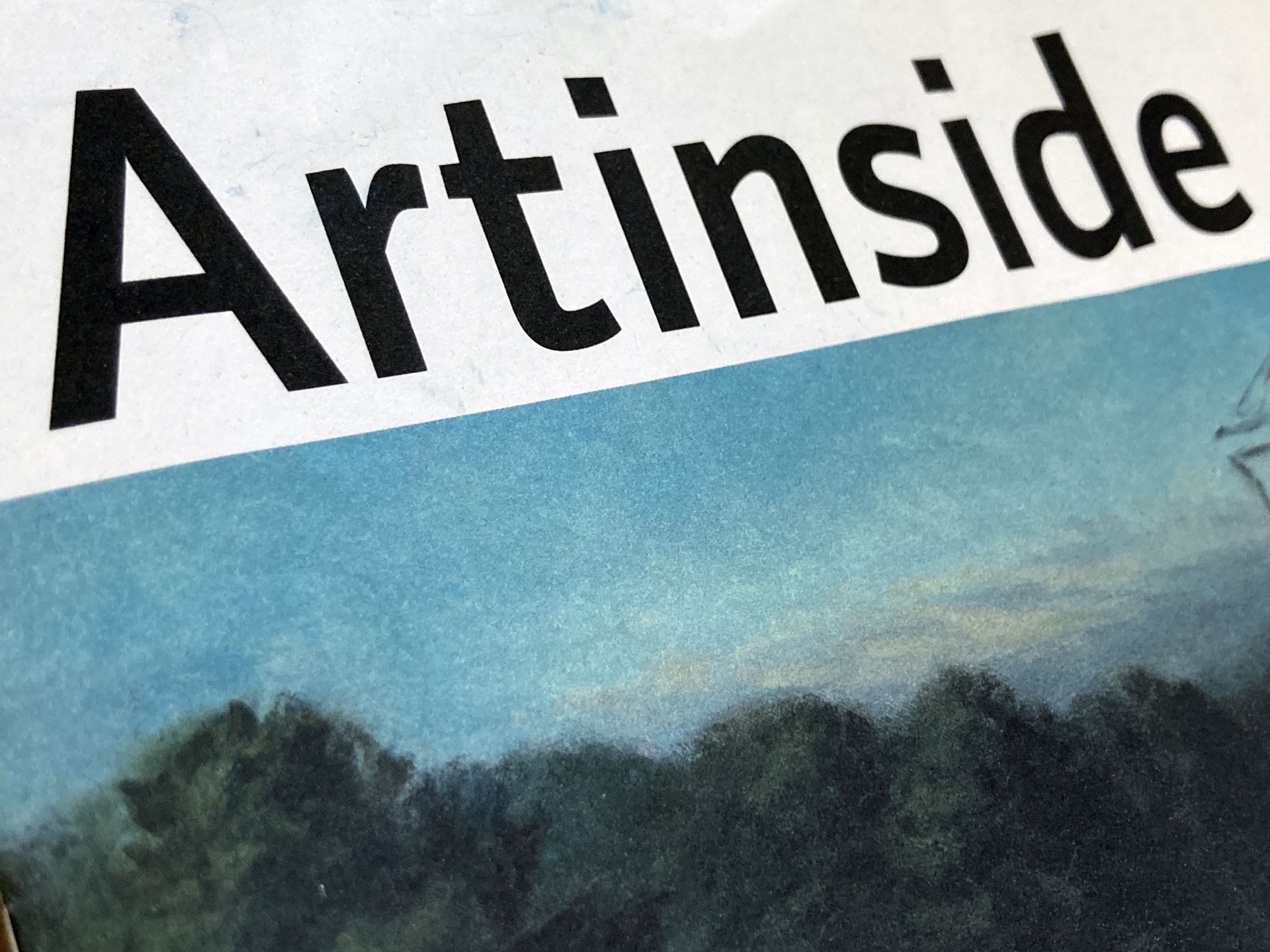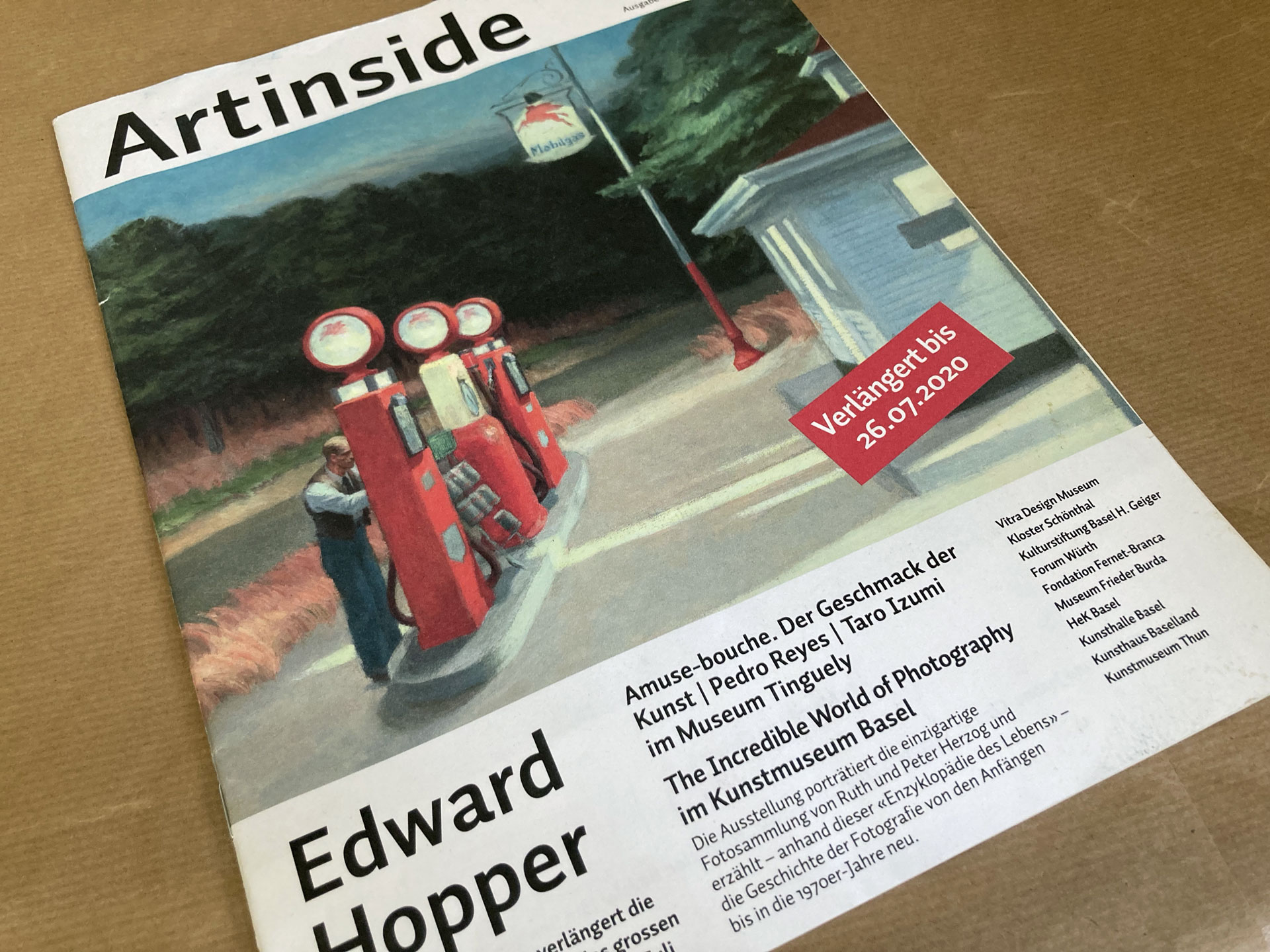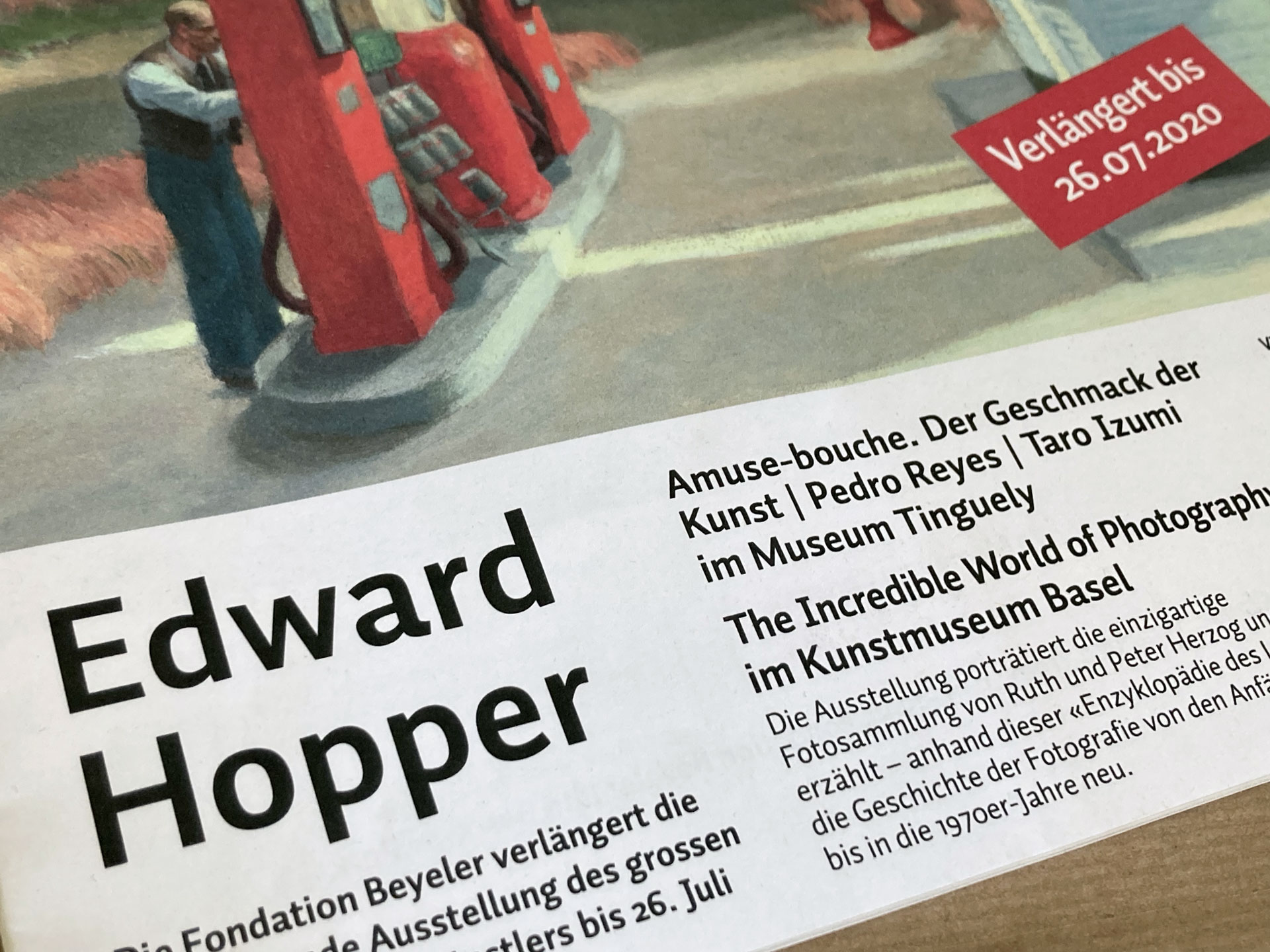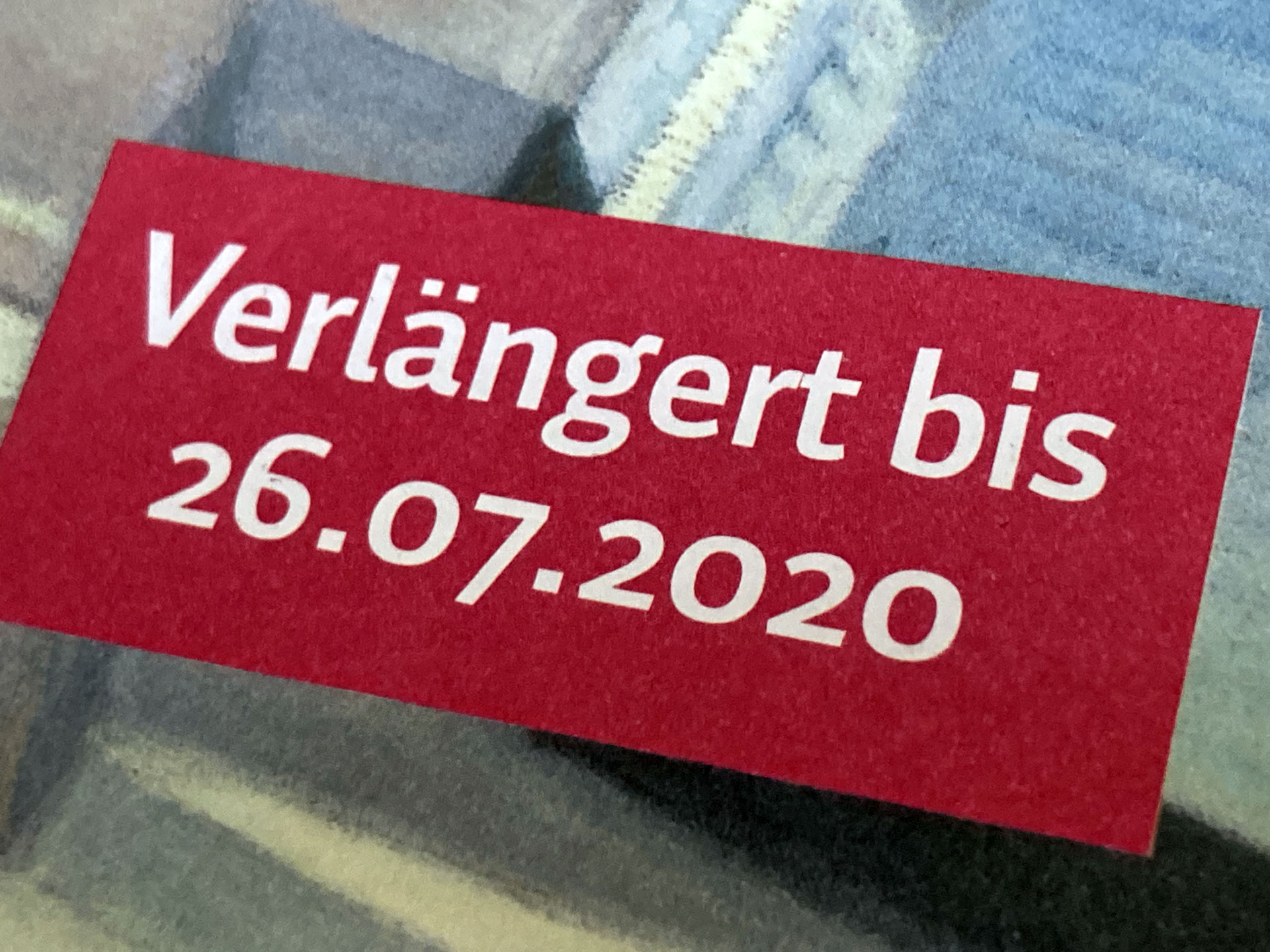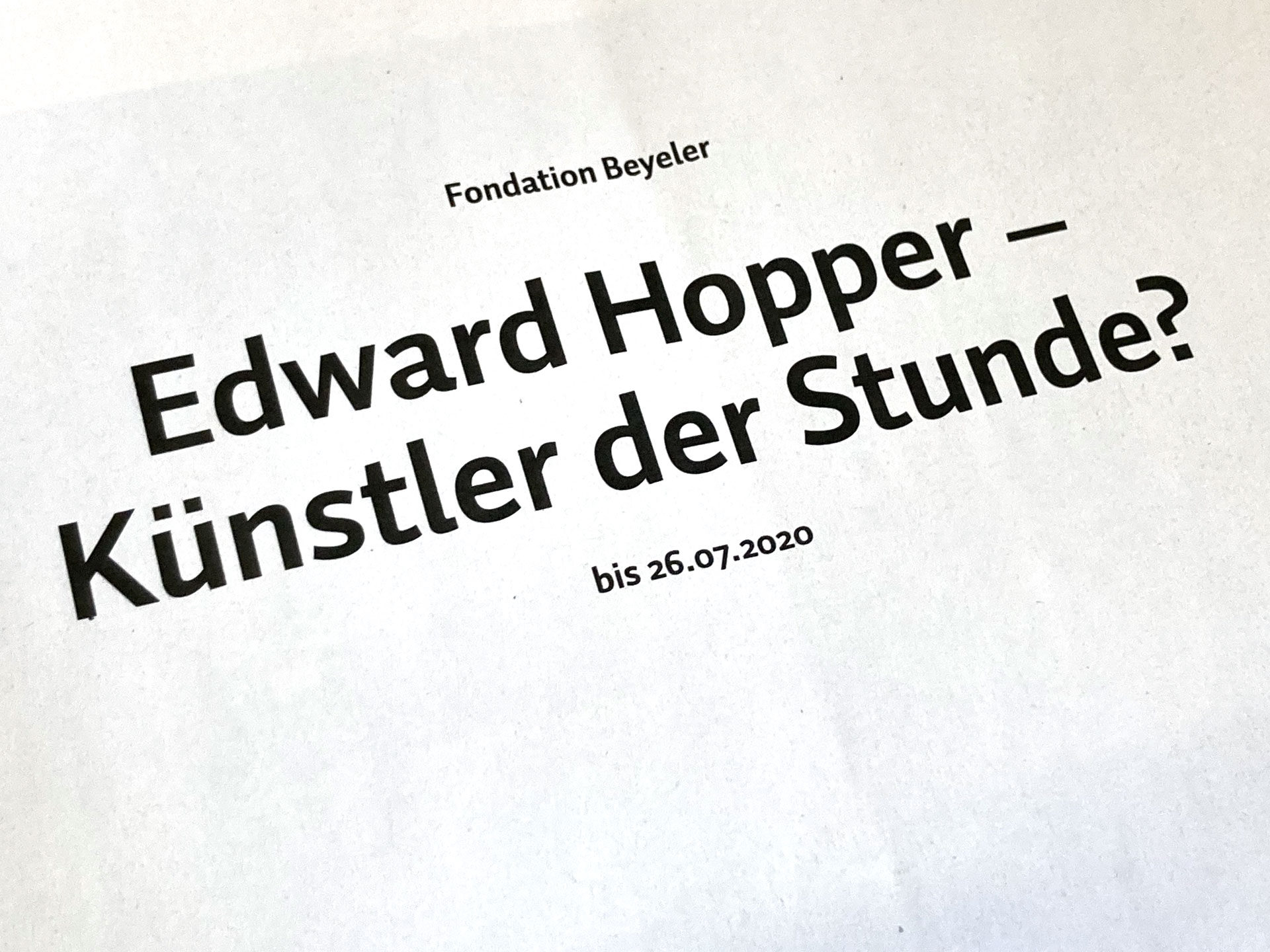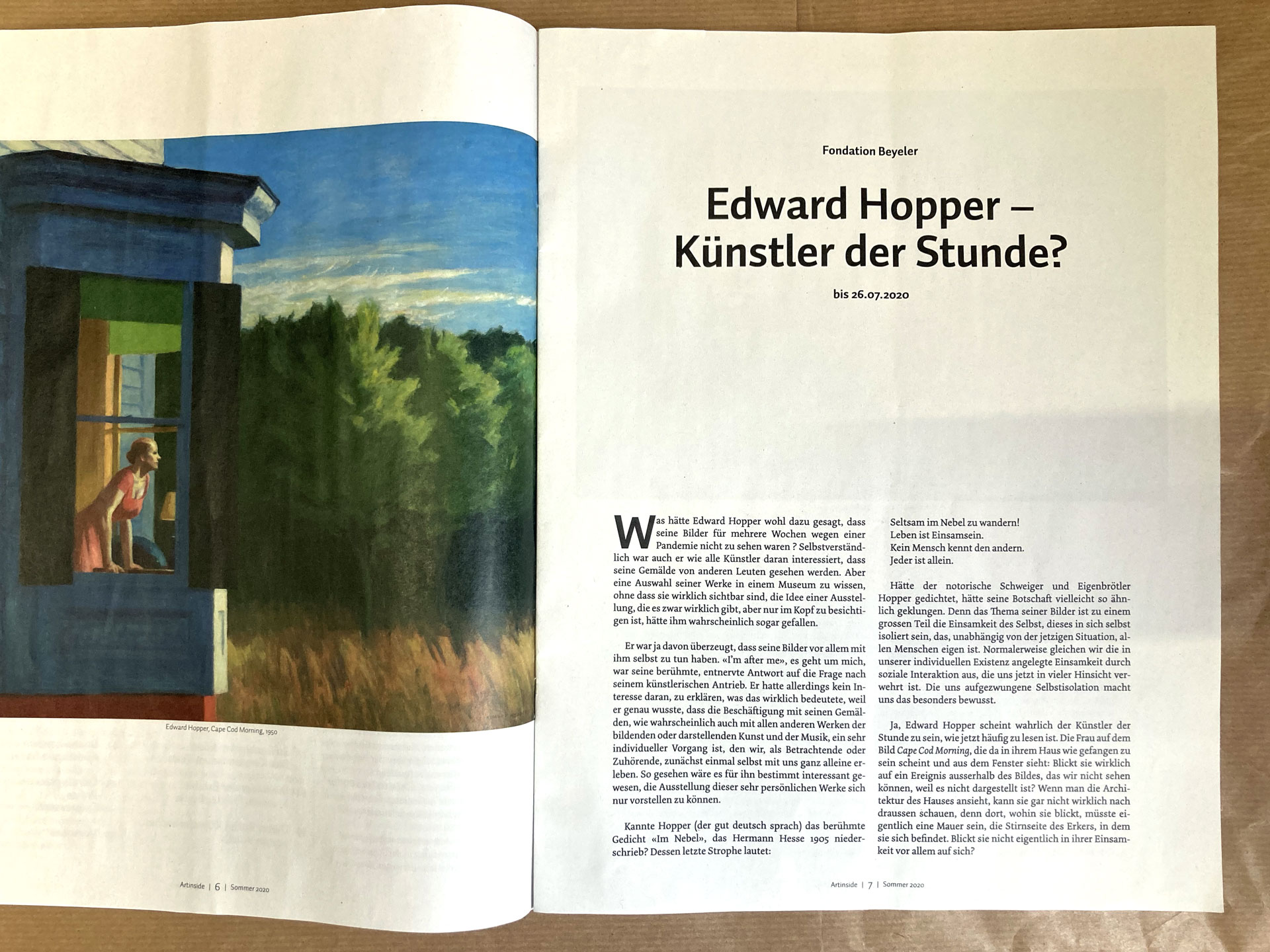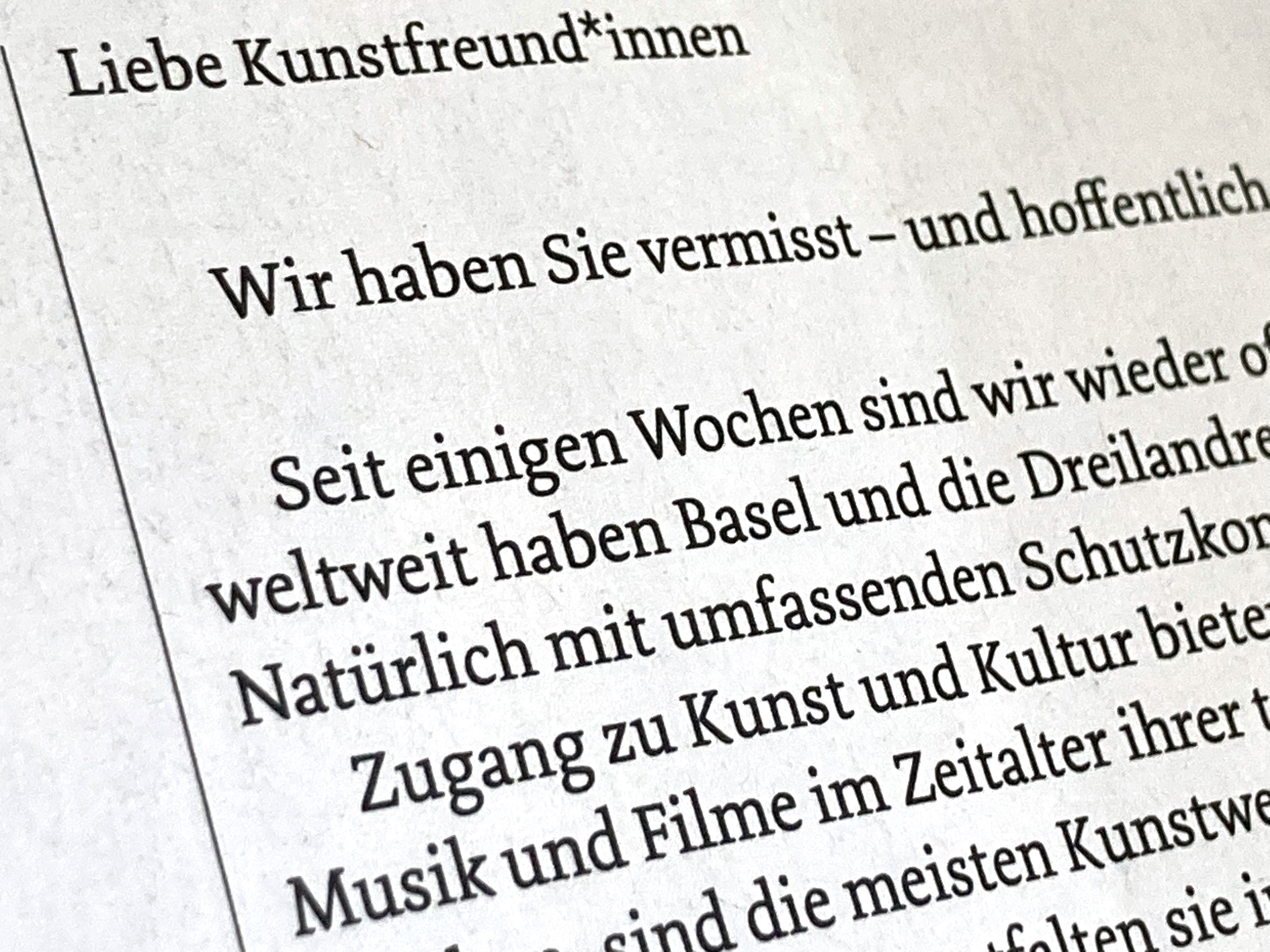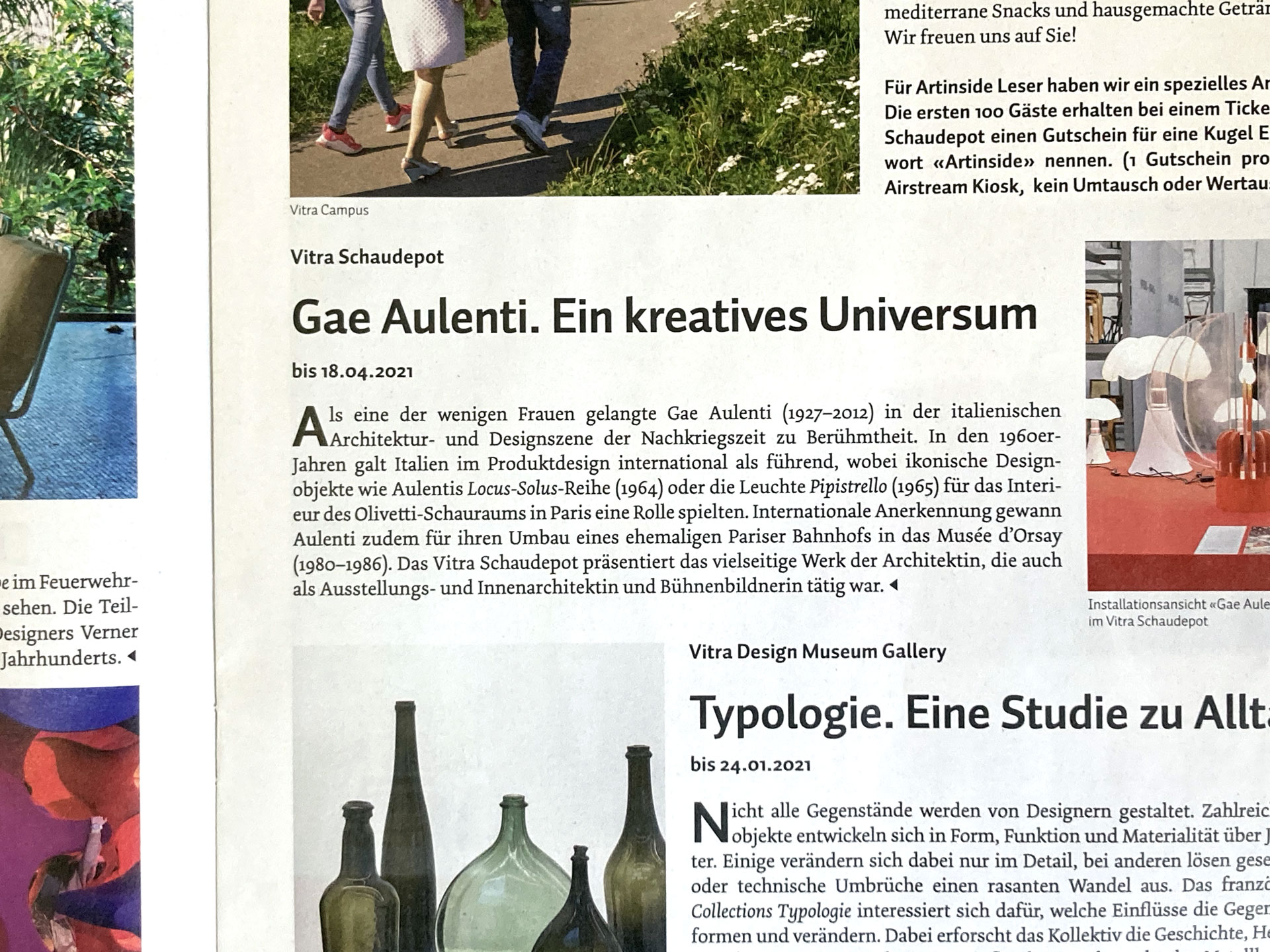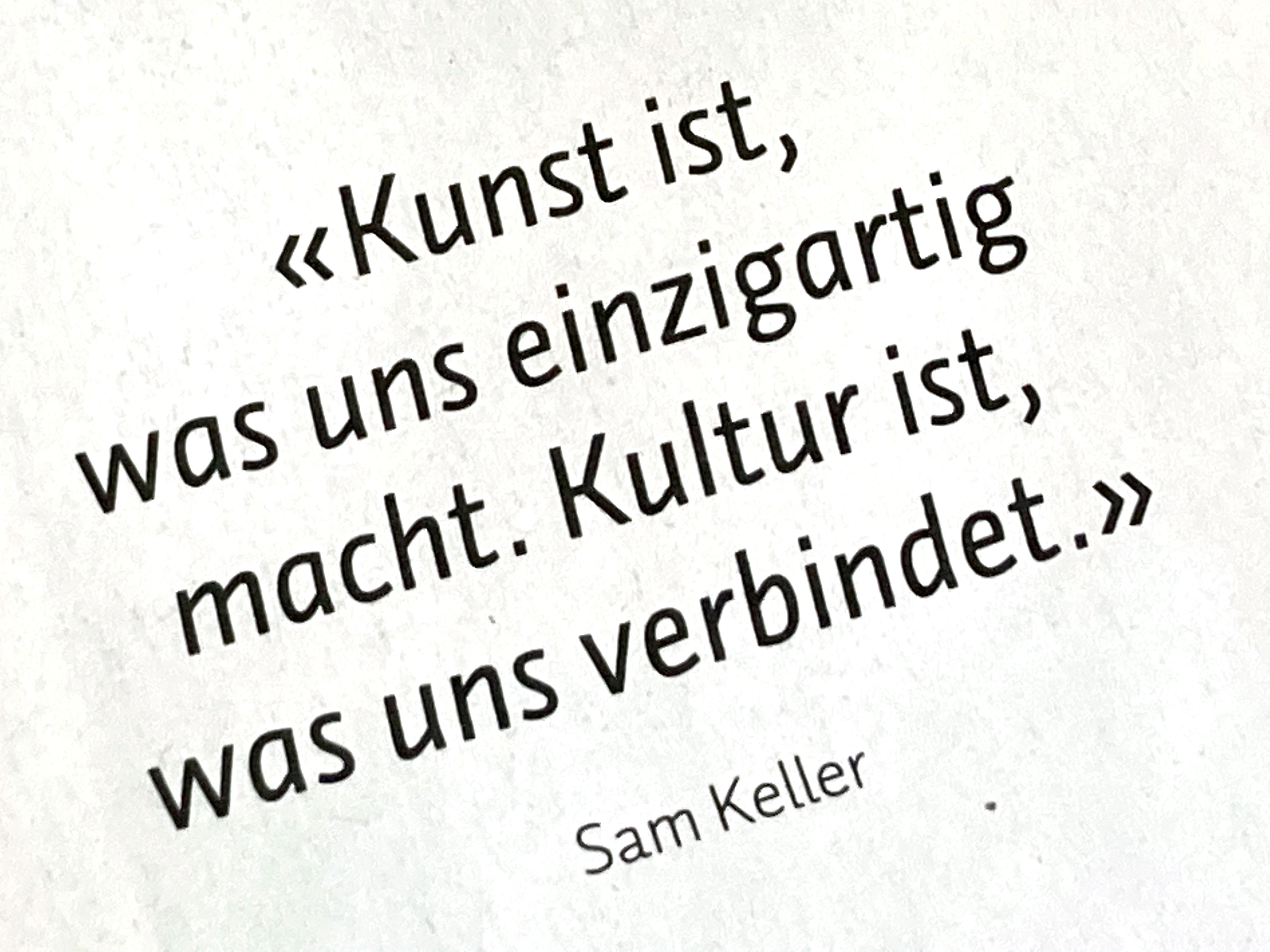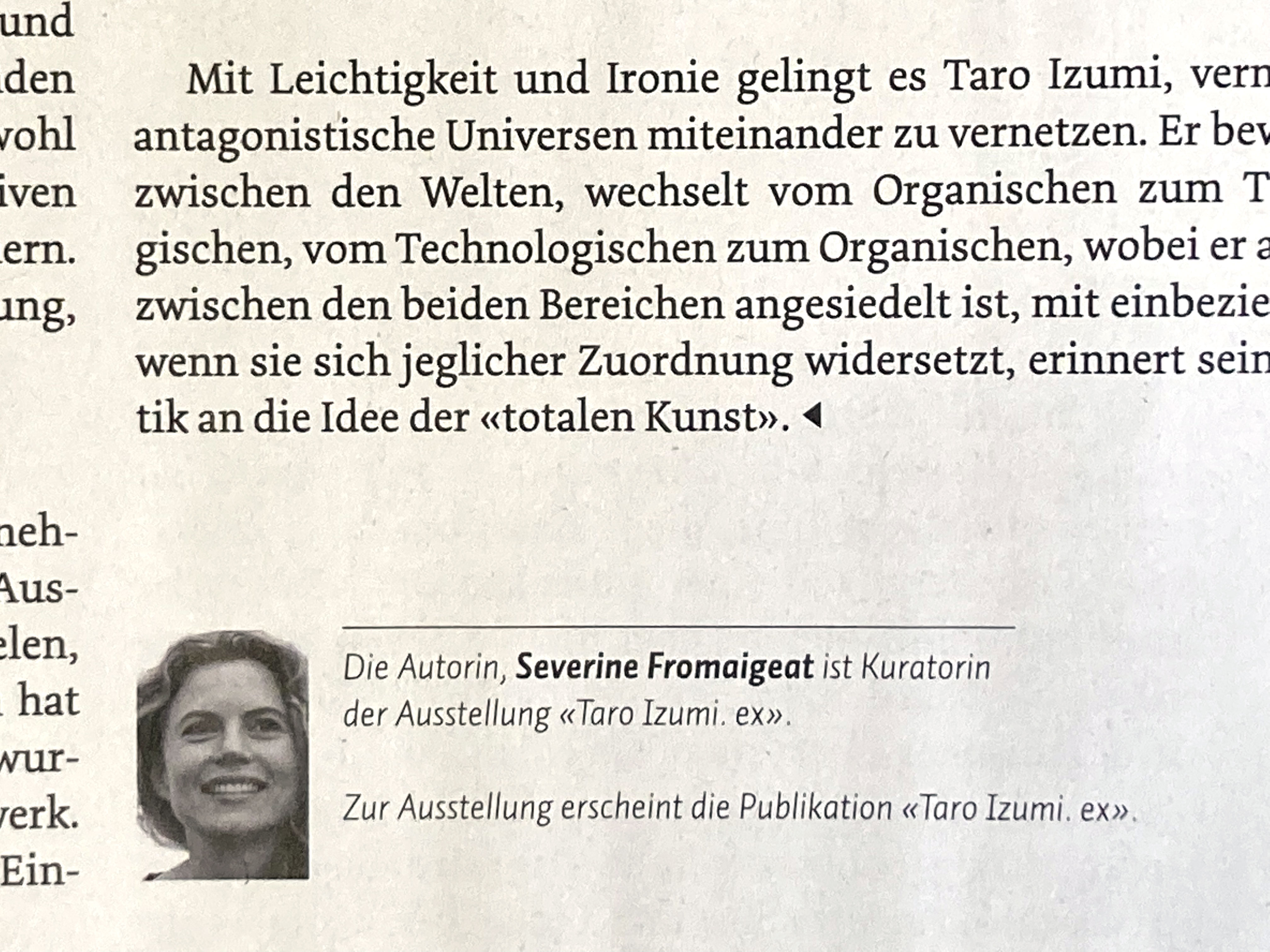
Some refined Swiss macro typography, using Auto and Dolly for all typography, from headlines to running text to tiny captions, in the Swiss Artinside magazine.
Artinside magazine